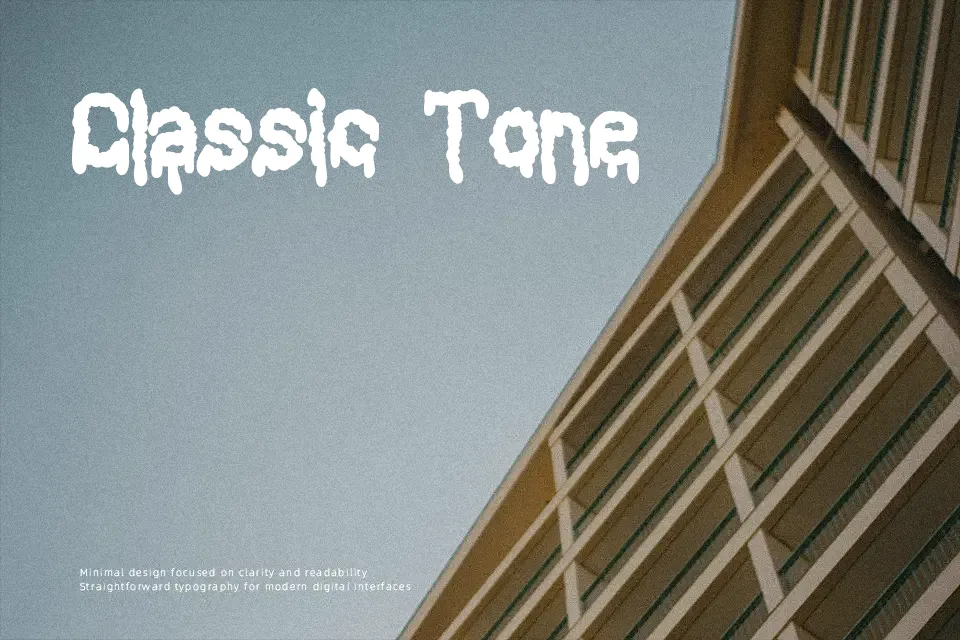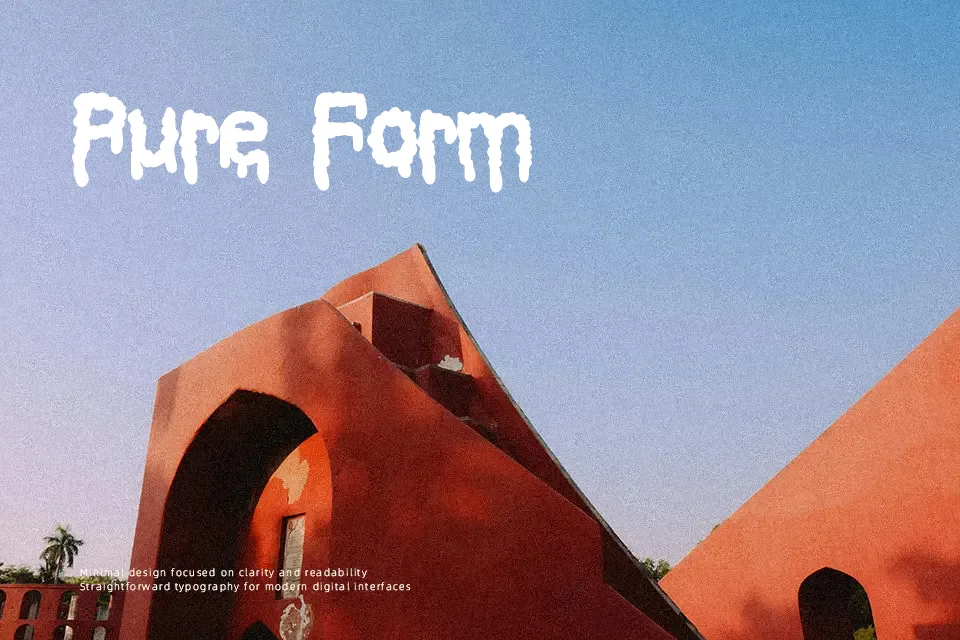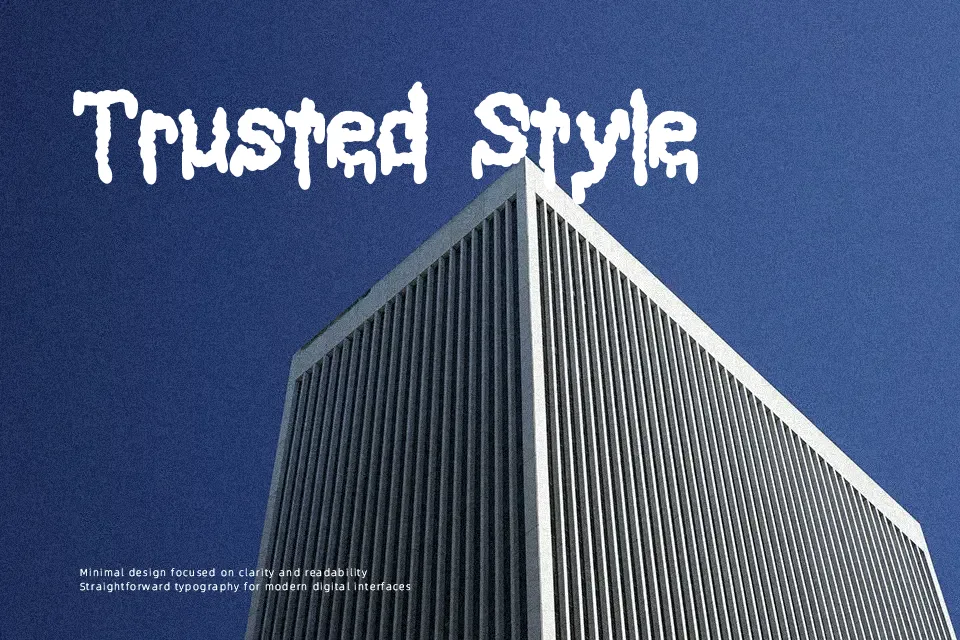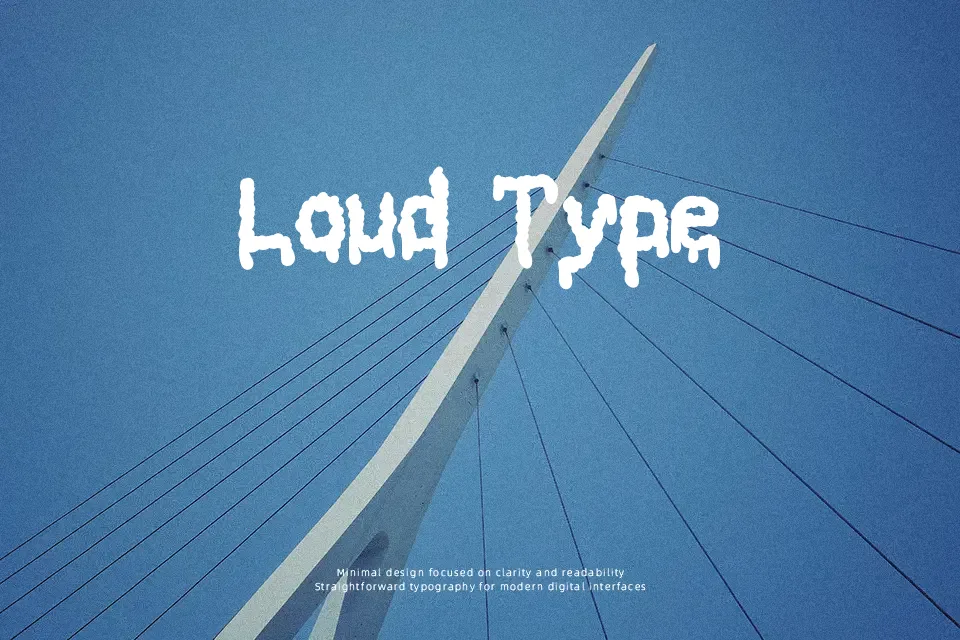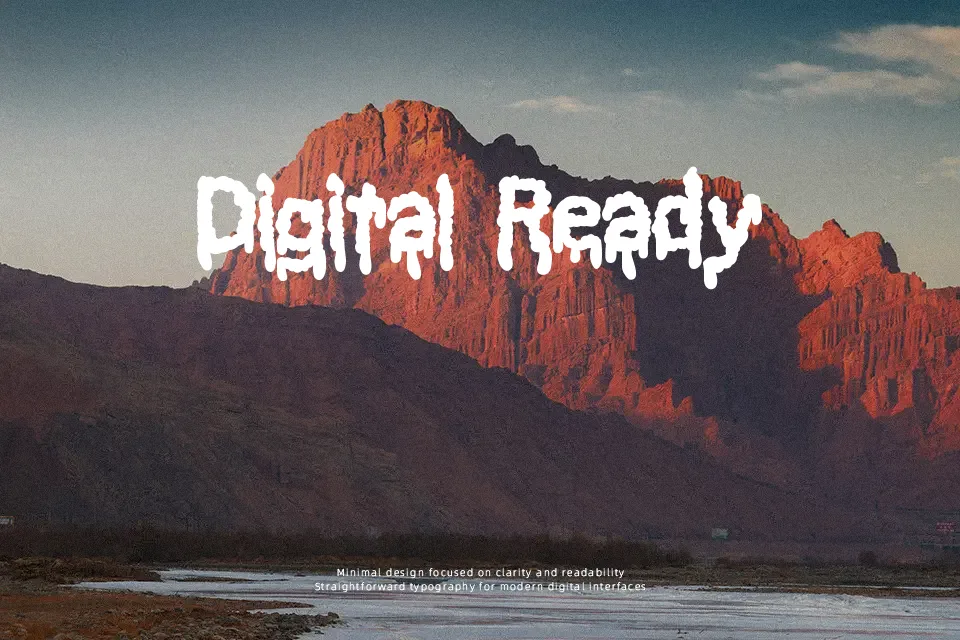
Black Shadow Font
Black Shadow delivers an unsettling visual experience with its heavily textured, irregular letterforms. The characters appear roughly scraped onto a decaying surface, giving the typeface a distinctively distressed, gritty edge. It carries a dramatic, dark mood that leans deeply into horror aesthetics. This display font thrives when applied to large-scale typography like indie thriller posters, Halloween event flyers, or dark fantasy video game headers. Because of its rough outlines, it requires ample space to maintain its chilling impact. Black Shadow struggles significantly in smaller contexts. Avoid using it for body copy, mobile interfaces, or any layout requiring clean readability, as the intricate distressed details quickly collapse into an illegible blur at reduced sizes.
Indie horror film posters
Halloween event promotional flyers
Gritty video game title screens
Spooky large-scale headlines
Long paragraphs or dense body text
Minimalist corporate brand identities
Small digital interface elements
Perfect for film, gaming, and halloween, with a dark and decorative style.